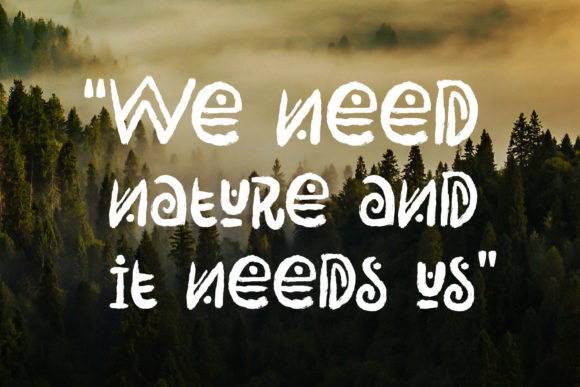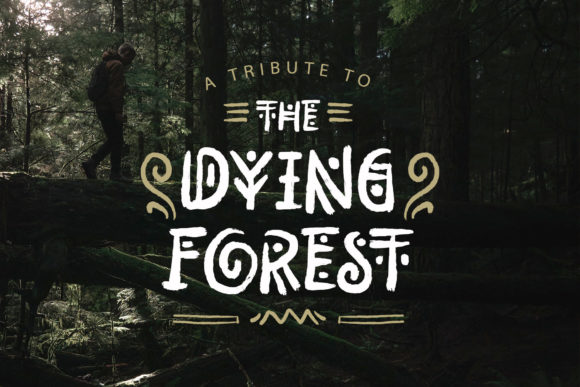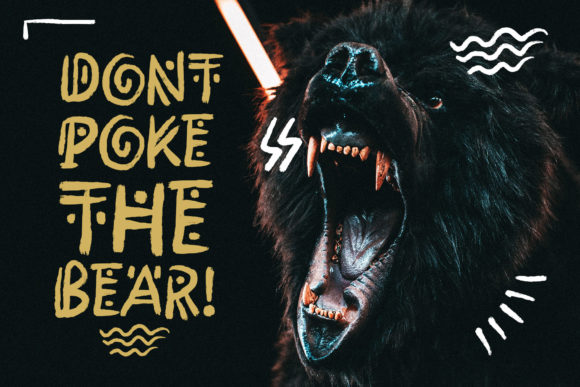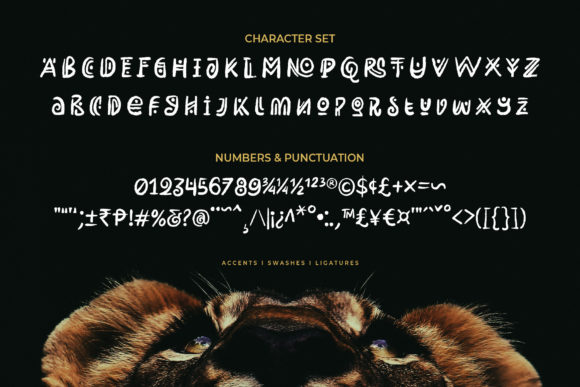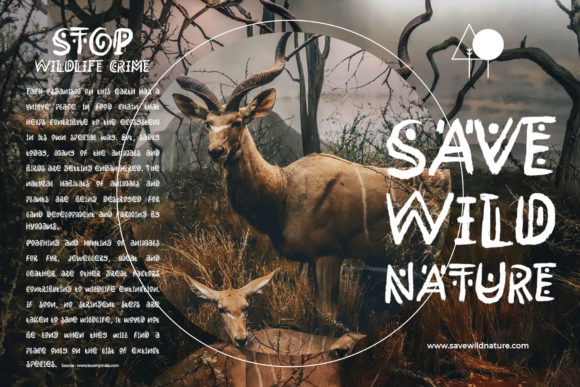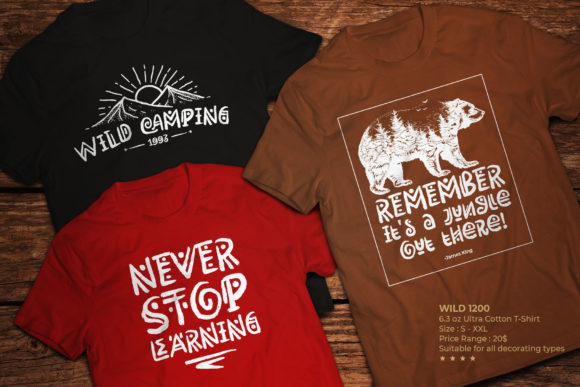
Introduction to Rimba Andalas Font Font
Fonts play a crucial role in design, and the Rimba Andalas Font font is a typeface that brings both character and versatility to any project. Whether you’re working on a branding project, a website, or a print design, the Rimba Andalas Font font offers a unique style that can elevate your work.
Rimba Andalas is a unique display font with tribal elements.
It is perfect for a wide variety of projects such as: natural theme, traditional, cultural, folk, tribal, children, adventures, and social movement This font is PUA encoded which means you can access all of the glyphs and swashes with ease.
Key Features of Rimba Andalas Font Font
Why Choose Rimba Andalas Font Font?
The Rimba Andalas Font font is more than just a typeface – it’s a design tool that helps you communicate your message with style and clarity. Its unique character set and versatile design make it suitable for a wide range of applications, from elegant invitations to bold headlines.
With its carefully crafted letterforms and balanced proportions, the Rimba Andalas Font font ensures readability and visual appeal across all mediums.
What makes Rimba Andalas Font font special?
The Rimba Andalas Font font stands out with its unique design, exceptional readability, and versatility across various design applications.